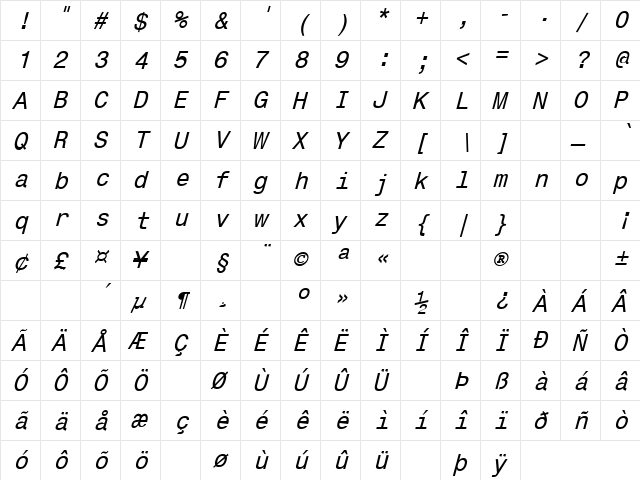
Gallows Pole 4 Italic Font Preview
Gallows Pole 4 Italic
Design Context for Gallows Pole 4 Typeface
Gallows Pole 4 is a composed and adaptable typeface that performs quietly and consistently across a wide range of design contexts. The slanted form adds forward momentum and visual energy.